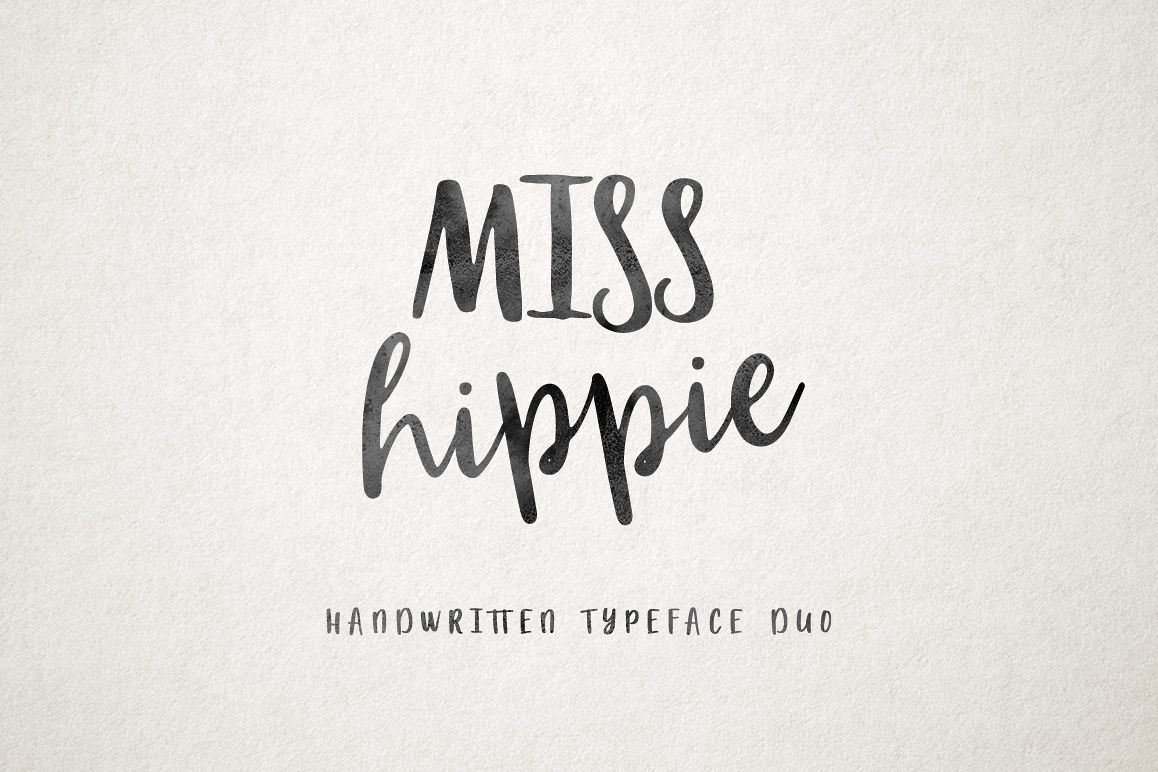
Miss Hippie handwritten font DUO
Miss Hippie is amazing lettering font DUO, every single letters have been carefully crafted to make your text looks beautiful. Both these fonts complement each other. You can make compositions from fonts, it's easy and simple. With lettering script style this font will perfect for many different project ex: quotes, blog header, poster, wedding, branding, logo, fashion, apparel, letter, invitation, stationery, etc.